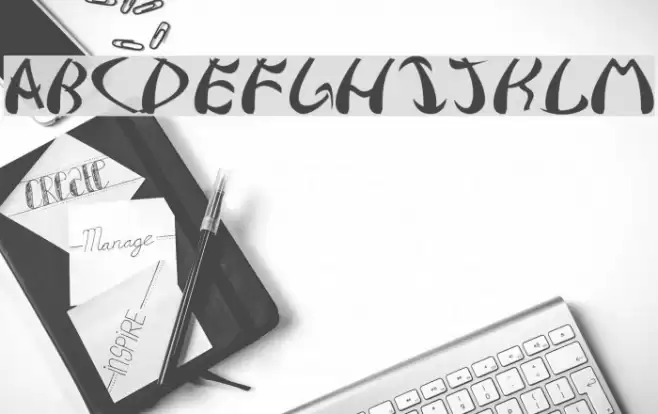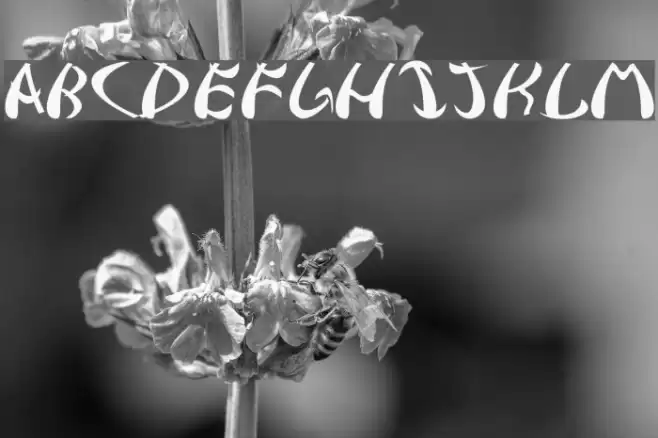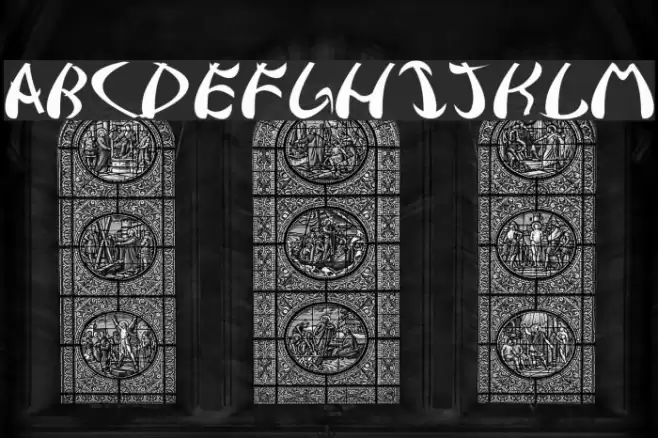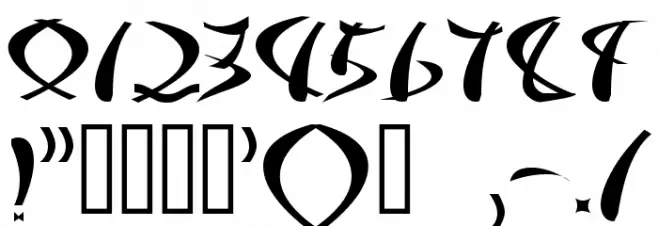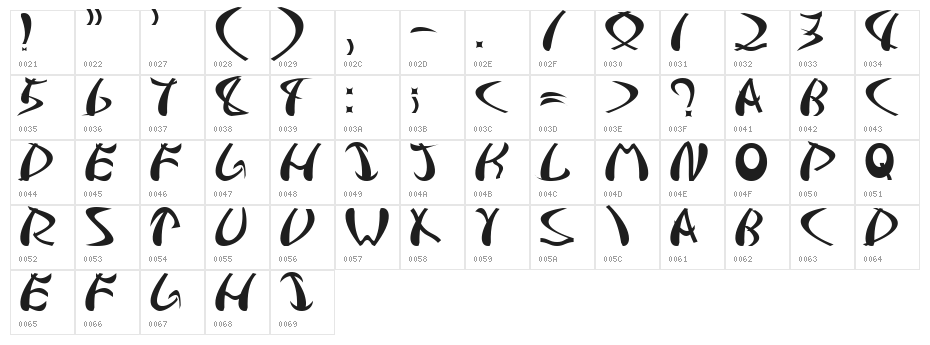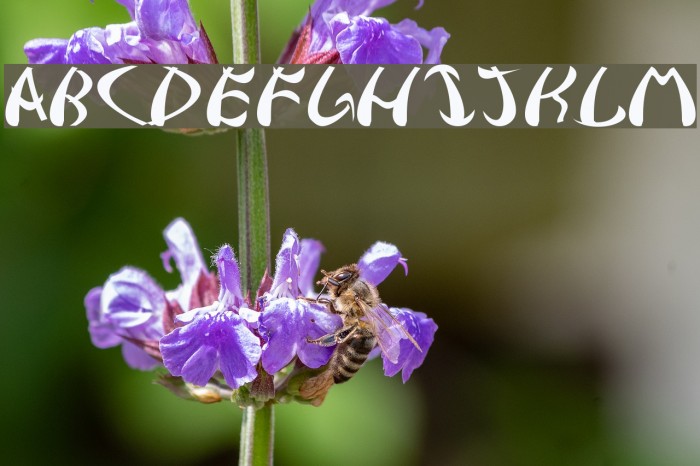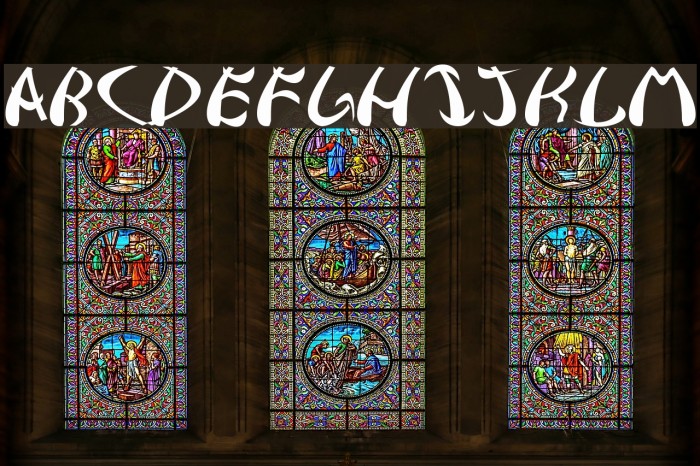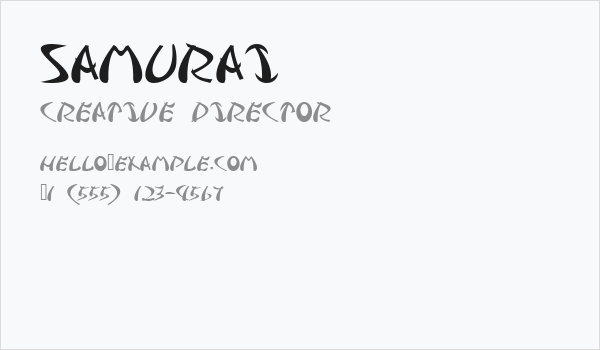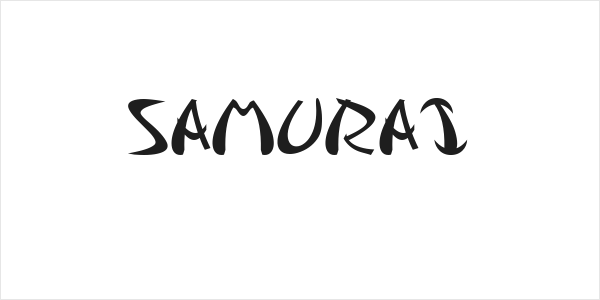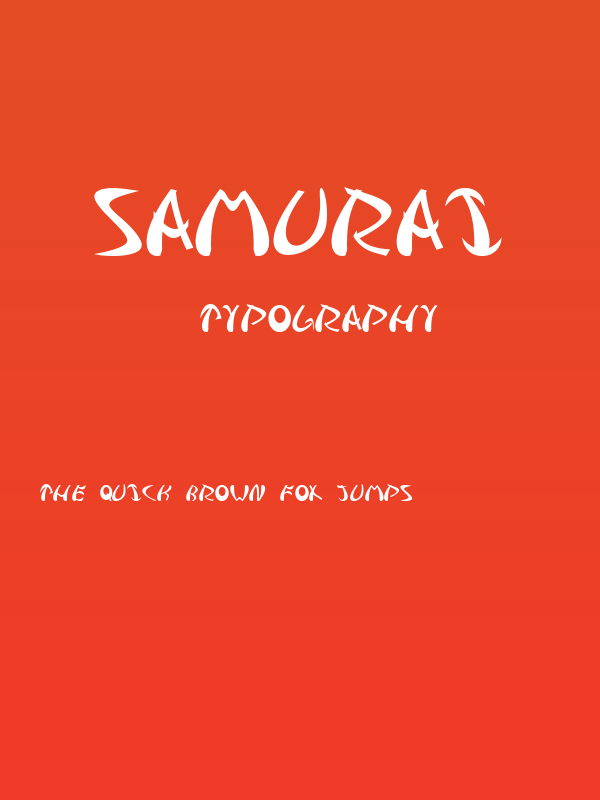
Samurai Font
Samurai Description
This font exudes a dynamic and bold aesthetic, characterized by its sharp, angular strokes and fluid, sweeping curves. The uppercase letters are particularly striking, with a sense of movement reminiscent of calligraphic brush strokes. The lowercase letters maintain this fluidity, offering a harmonious balance between elegance and strength. The numerals are equally distinctive, featuring unique, artistic forms that complement the overall style. Special characters are crafted with the same attention to detail, ensuring consistency across the entire typeface. This font is ideal for projects that require a touch of drama and flair, making it perfect for headlines, posters, and branding materials.
A dynamic, bold font with sharp, angular strokes and fluid curves, ideal for dramatic designs from Handwritten fonts.
- Proposed Projects: Perfect for use in branding, posters, headlines, and any design requiring a bold, artistic touch.